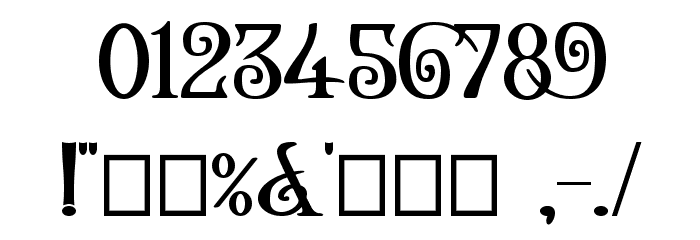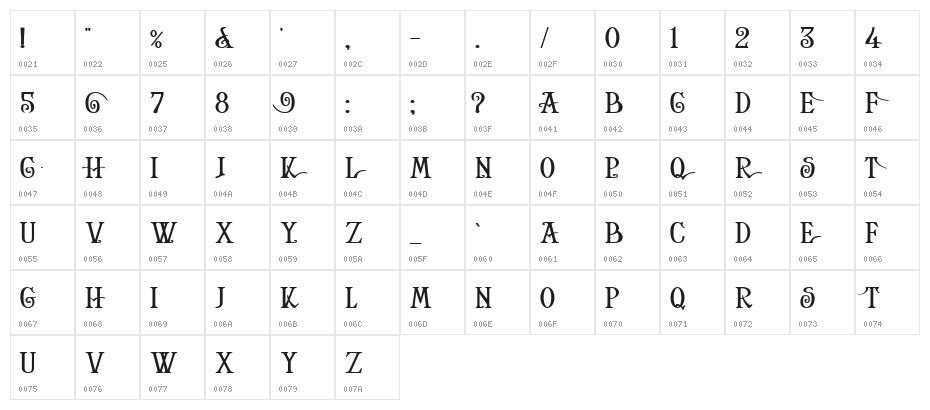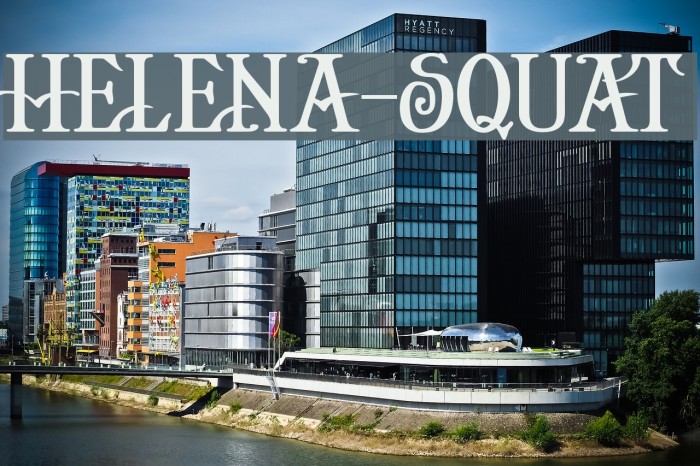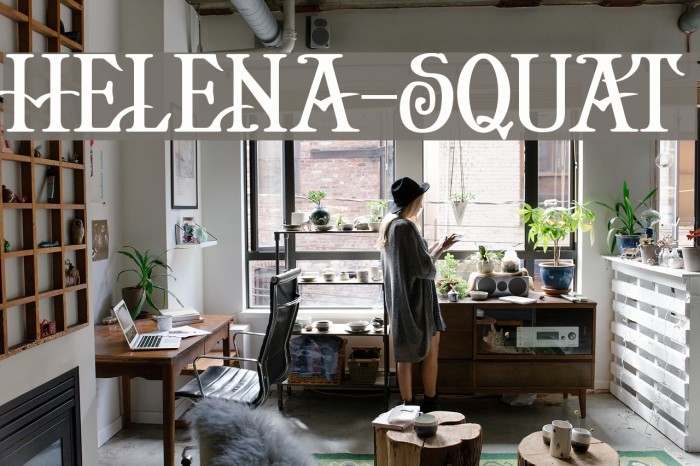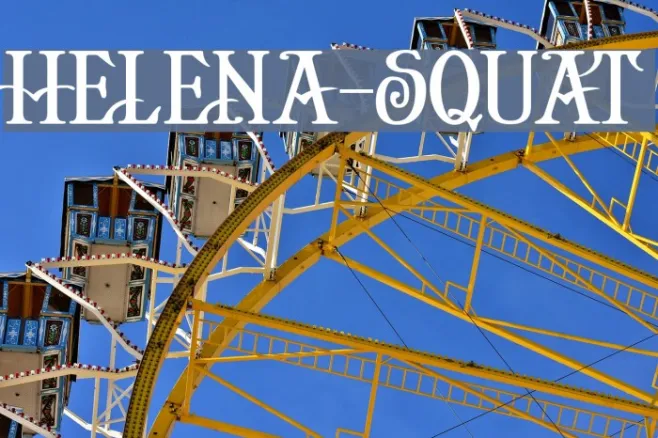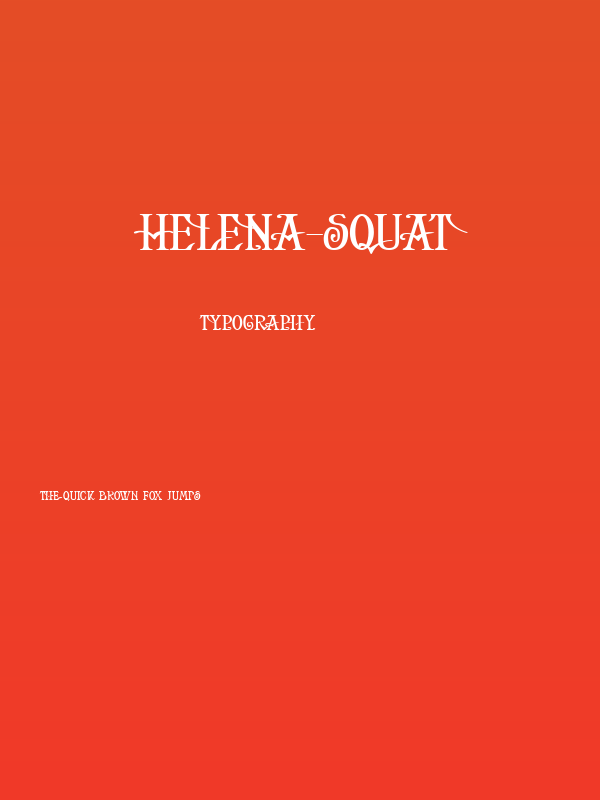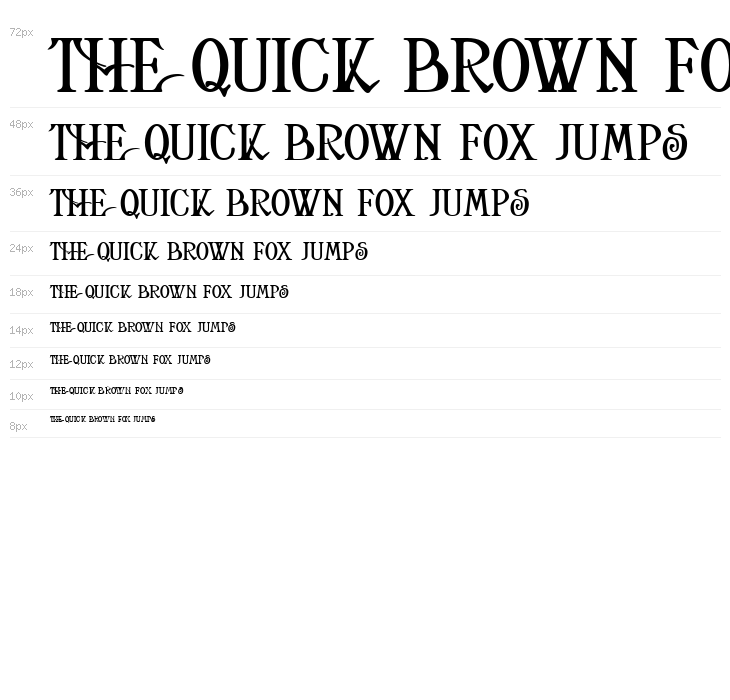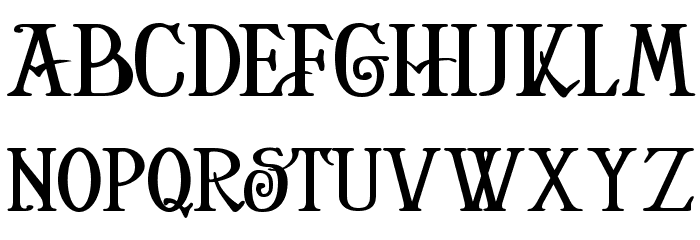
Helena-Squat Font
Helena-Squat Description
This font features a unique blend of classic and decorative elements, characterized by its bold and intricate design. The uppercase letters exhibit a strong presence with ornate swirls and flourishes, adding a touch of elegance and sophistication. The lowercase letters maintain a consistent style, ensuring readability while still embracing the decorative theme. Numbers and special characters are crafted with the same attention to detail, making them stand out. The font's overall appearance is both artistic and functional, suitable for projects that require a distinctive and eye-catching typeface.
| Proposed Projects | Ideal for invitations, posters, branding, and any project requiring a decorative touch. |